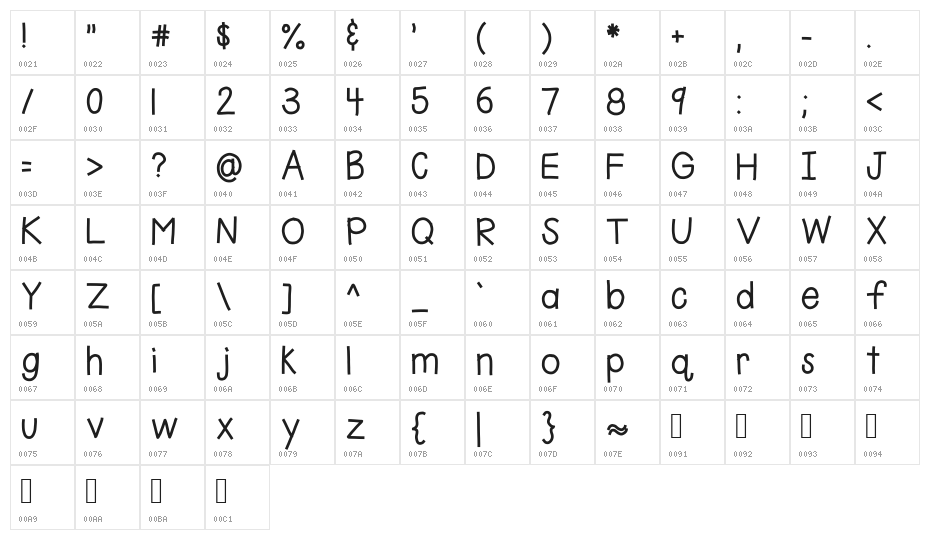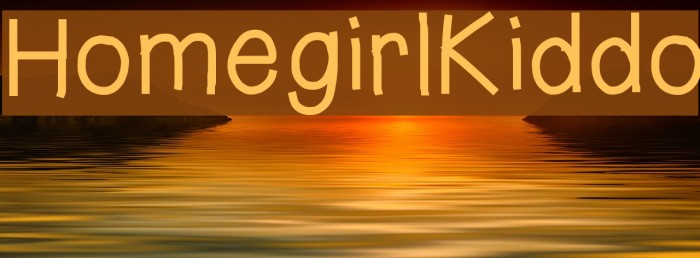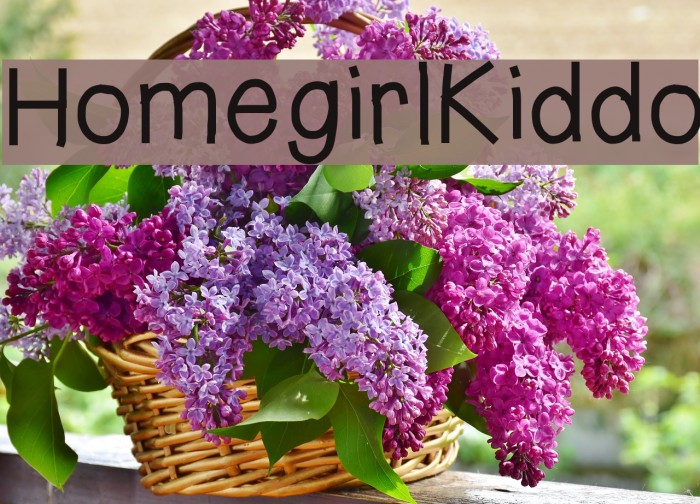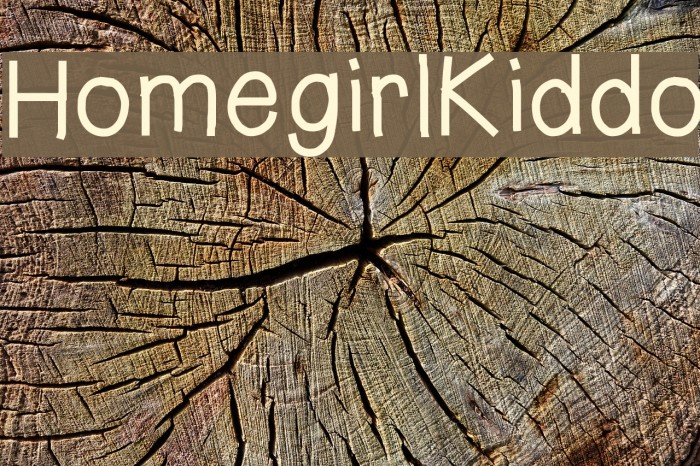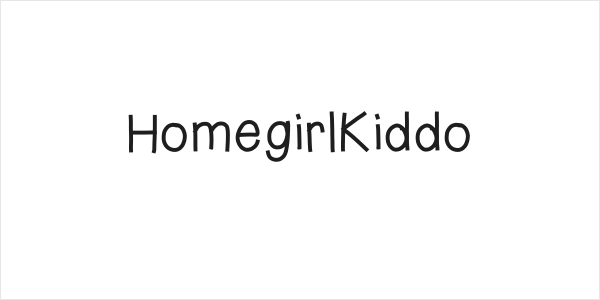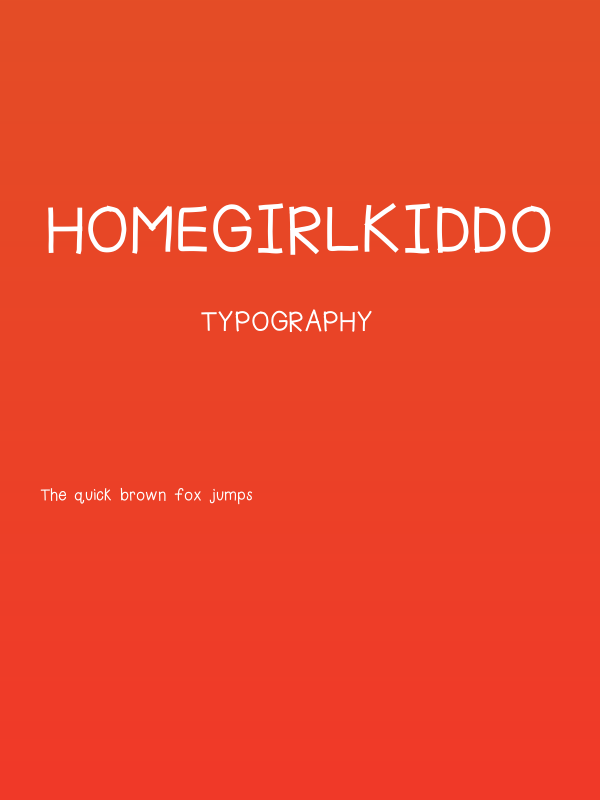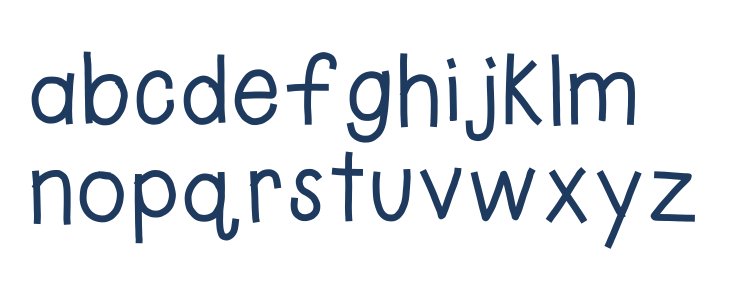
HomegirlKiddo Font
HomegirlKiddo Description
This font exudes a playful and informal vibe, characterized by its handwritten style. The letters are slightly irregular, giving it a casual and approachable feel. The uppercase and lowercase letters maintain a consistent height, while the numbers and special characters blend seamlessly with the overall design. The strokes are uniform in width, contributing to a clean and legible appearance. This font is ideal for projects that require a friendly and relaxed tone, such as children's books, casual invitations, or playful branding materials.
Overall StyleCasual
Use CaseHeadlines, Informal text, Branding
Proposed ProjectsChildren's books, casual invitations, playful branding materials.